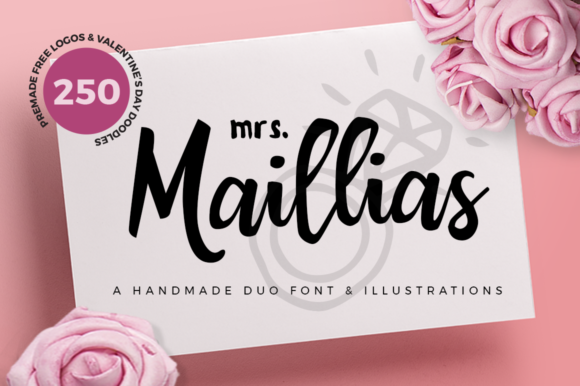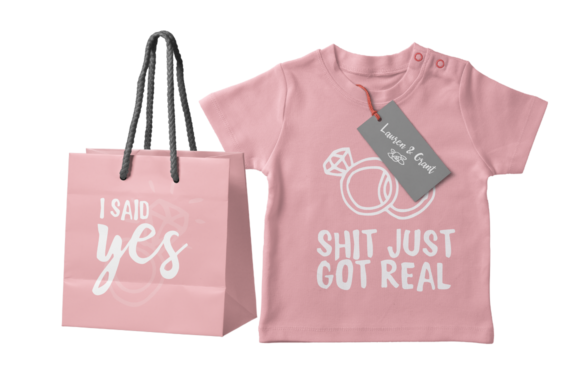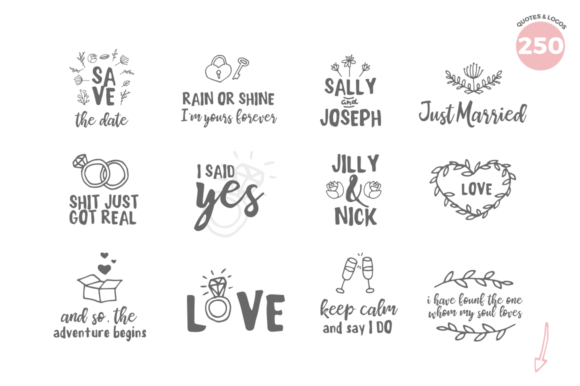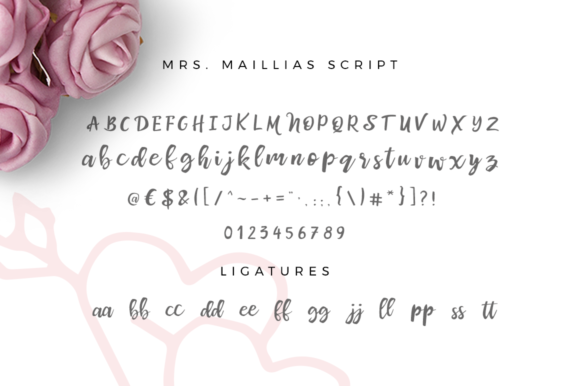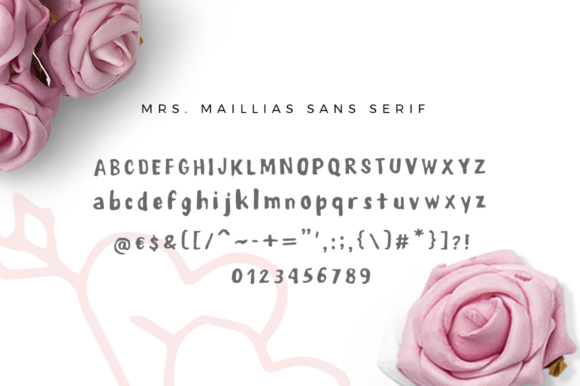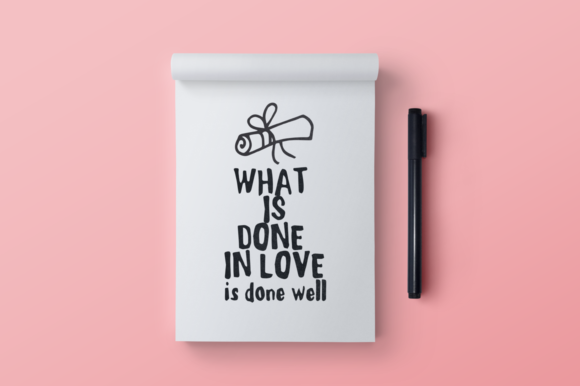
Mrs Maillias Duo Font
About Mrs Maillias Duo Font
Introducing “The Mrs Maillias,” a beautiful handmade script duo designed to add elegance and charm to your projects. This font duo is not just a typeface; it’s a comprehensive design package perfect for wedding invitations, t-shirt designs, logos, quotes, and much more. As a bonus, you also get 50 free premade logo templates and over 250 illustrations, making it a versatile and valuable resource for your creative endeavors.
“The Mrs Maillias” script duo features a delicate and handmade style that brings a sense of beauty and sophistication to your designs. Whether you’re crafting wedding invitations that demand a touch of romance, designing t-shirts that require a unique flair, or creating logos and quotes that need a personalized touch, this font duo delivers with its graceful script and complementary typeface.
The bonus of 50 free premade logo templates and over 250 illustrations expands the versatility of “The Mrs Maillias.” These additional resources provide ready-made solutions and creative elements to enhance your designs further. Whether you’re a designer looking for inspiration or a business owner in need of a quick logo solution, these extras offer a valuable toolkit.
In summary, “The Mrs Maillias” is more than just a font duo; it’s a design powerhouse that elevates your creative projects. Embrace its beauty for wedding invitations, logos, t-shirts, and more, and explore the added value of 50 free premade logo templates and over 250 illustrations to enhance your designs with elegance and creativity.